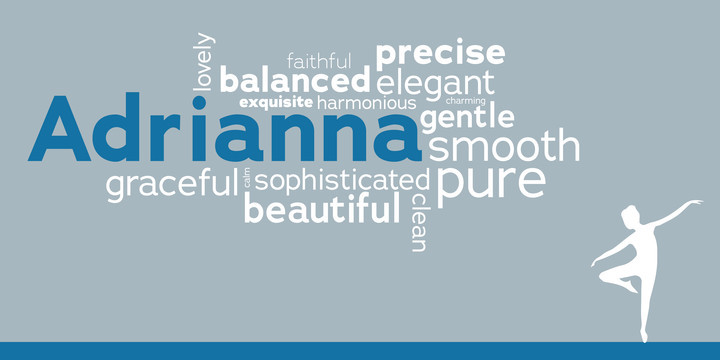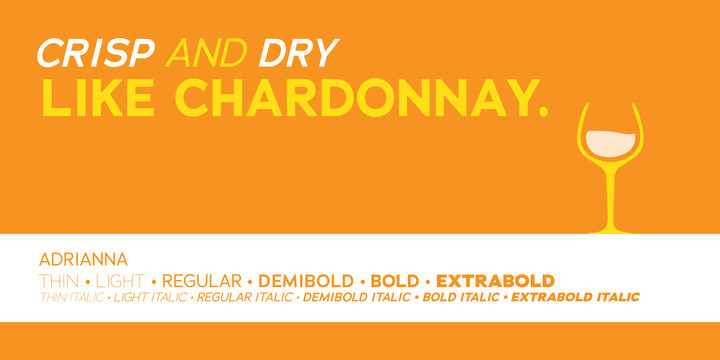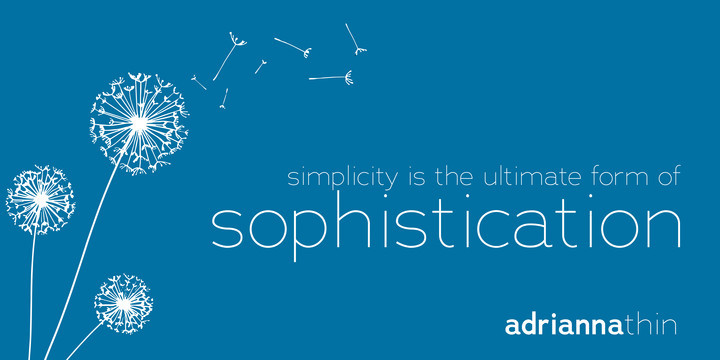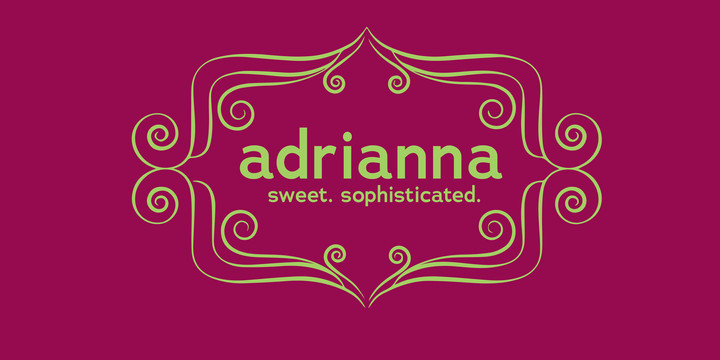
Adrianna Font Family
Adrianna is a fashionable yet restrained sans-serif font family for sophisticated designs. It’s a smart and versatile family of fonts, comprised of 30 styles across a range of three widths. The Regular width is a plain and clear heavy-lifting font. The Extended variety is meant to look good on HDTV and other modern wide output media. And the proportions of the Condensed makes it looks especially good when seen on a smartphone.
It’s a legible and direct type family. Ranging in 5 weights (plus italics) from Light to Extrabold in each width style, Adrianna has enough flavors to allow the finicky designer a broad typographic palette to work with.
Inspired by the great sans serif fonts of the 20th century, Chank challenged himself to create a technical font family that is considerably more conservative than his signature display faces. As a quality control for this new direction, he solicited expert advice from award-winning type & design experts. Working from their critiques, Adrianna has been in development for almost 10 years now. The result is a competent, charming new “invisible” sans for the new media of the new century.